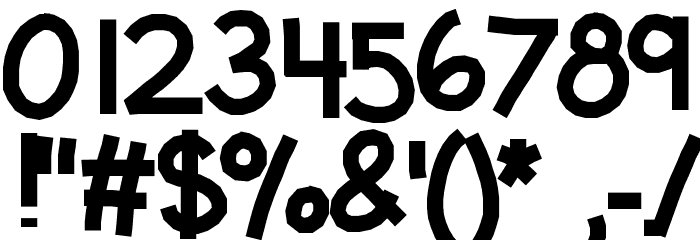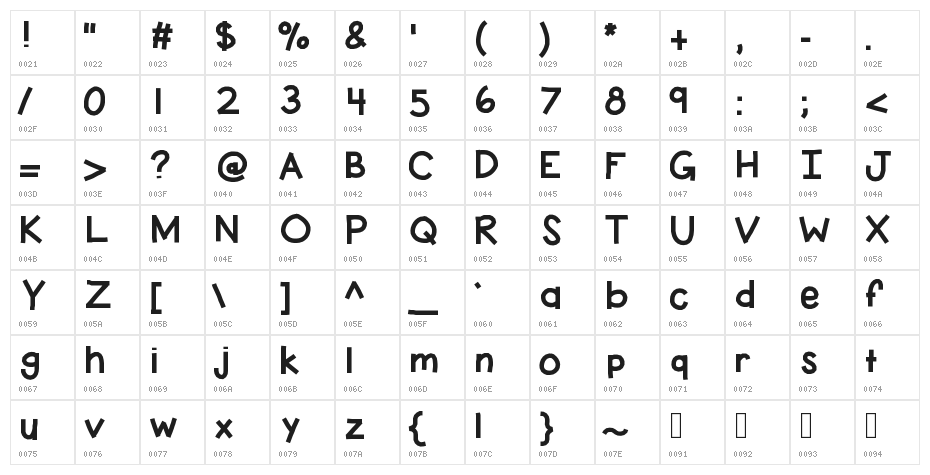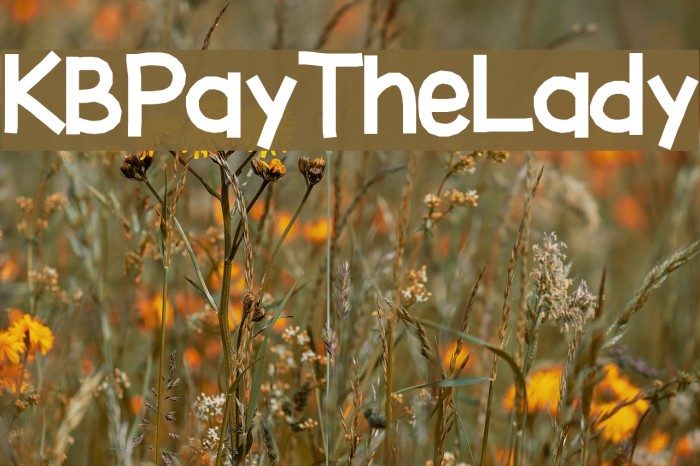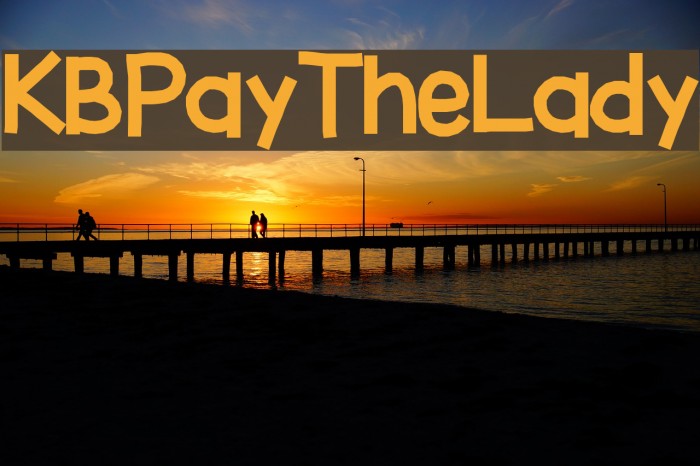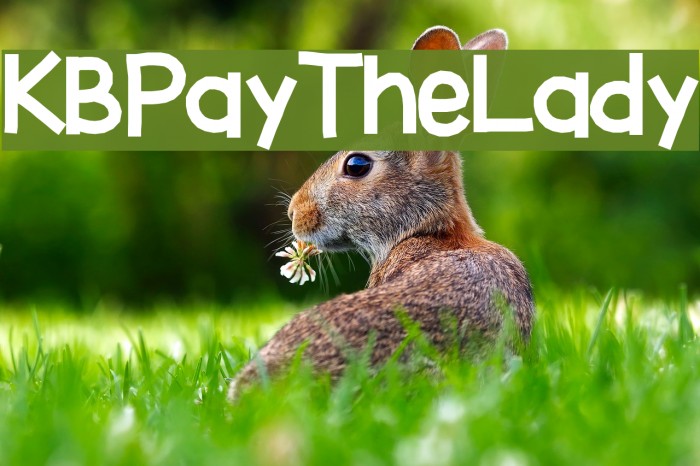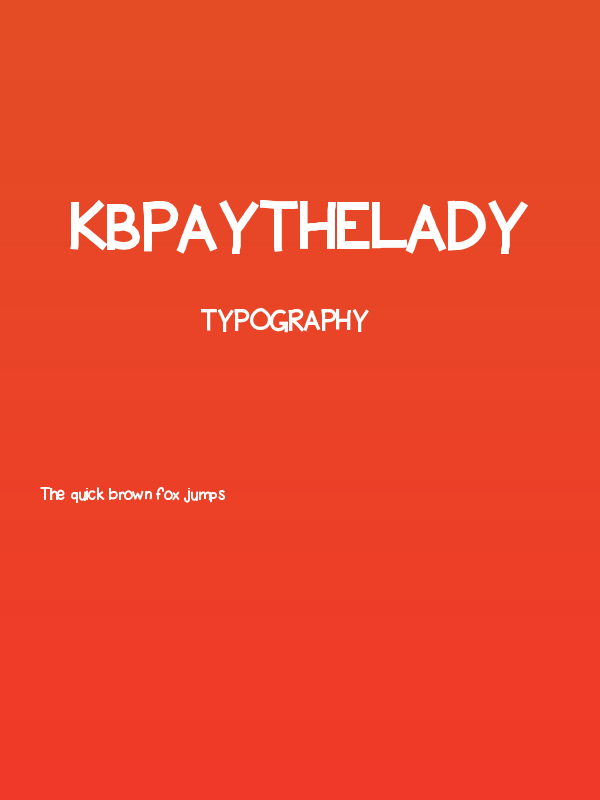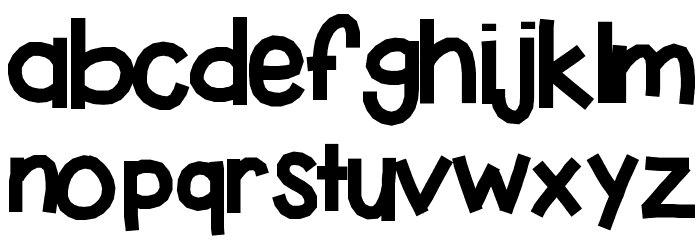
KBPayTheLady Font
KBPayTheLady Description
This font features a playful and bold design with a hand-drawn aesthetic. The letters are slightly irregular, giving it a whimsical and casual feel. The uppercase and lowercase characters are well-balanced, with rounded edges and a consistent stroke width. The numerals and special characters maintain the same playful style, making it suitable for creative and informal projects. Its unique appearance makes it stand out, while still being legible and versatile.
| Proposed Projects | Ideal for children's books, playful branding, casual invitations, and creative posters. |